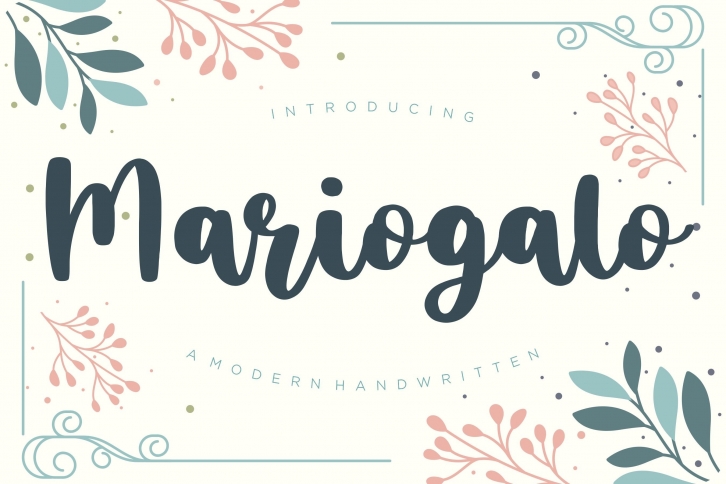
Mariogalo Modern Handwritten is a beautiful font that was designed by Balpirick. It's a great choice for designers and creatives who need such a font. It was released on November 2, 2020 and the file size is 9.16 MB. Mariogalo Modern Handwritten may give a more youthful, expressive and casual look to your project. It is a very beautiful, refined, elegant, and high-quality font.